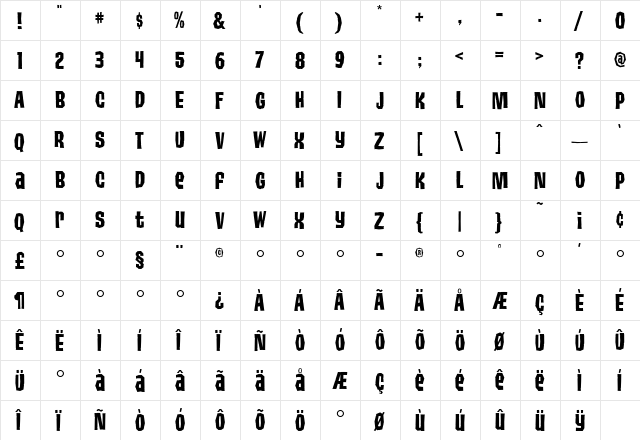
TikiIsland Medium Font Preview
TikiIsland Medium
TikiIsland Medium Font Details
| Foundry | Brand Design Co., Inc |
Design Context for TikiIsland Typeface
TikiIsland is a composed and adaptable typeface that performs quietly and consistently across a wide range of design contexts.